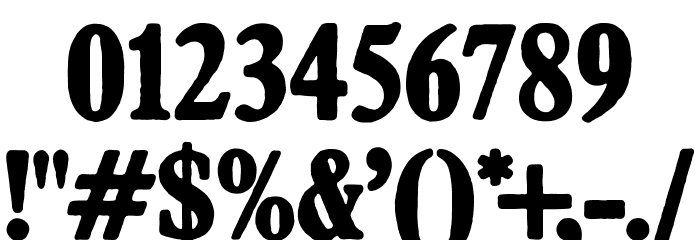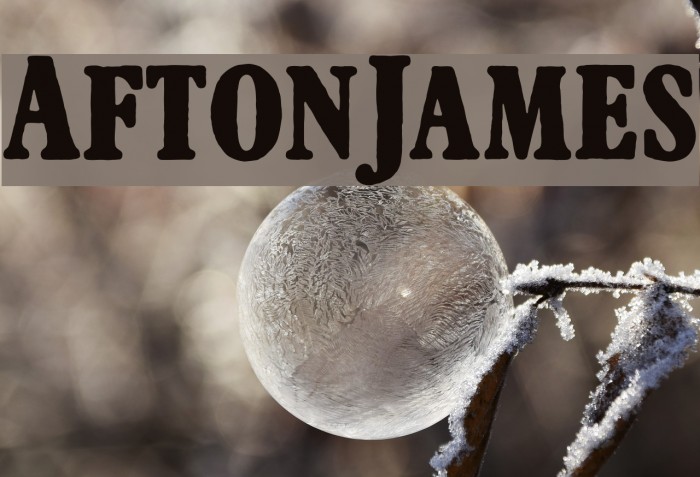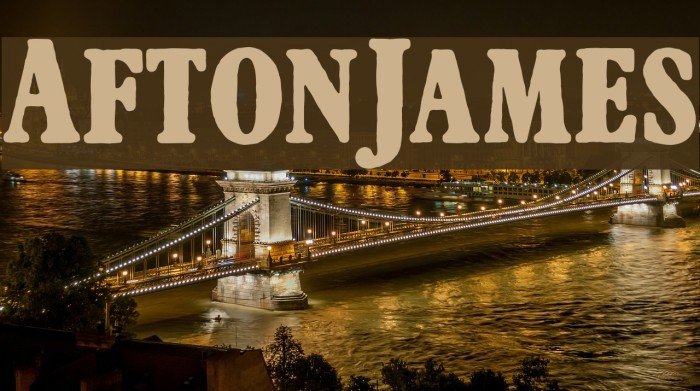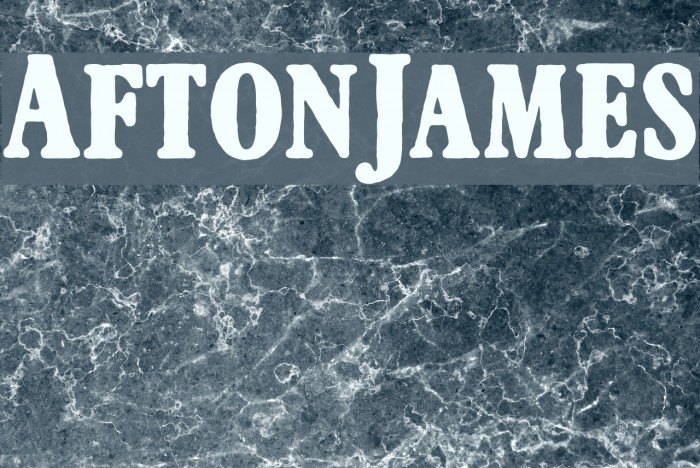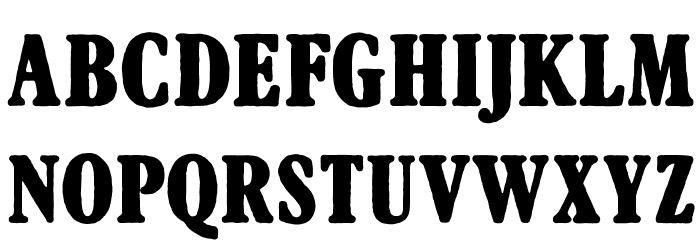
AftonJames Font
✎ Distorted Eroded
| Projetos propostos | This font is perfect for vintage-themed posters, branding for artisanal products, book covers, and any design project that seeks to evoke a sense of history and tradition. |